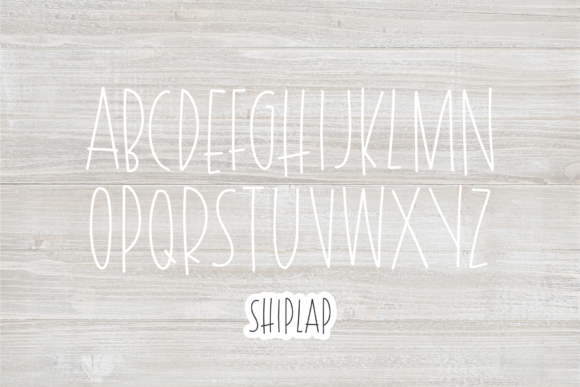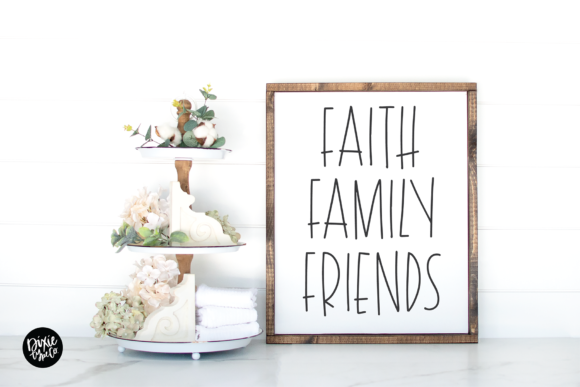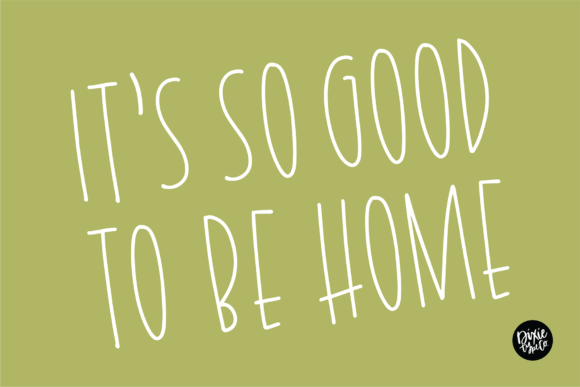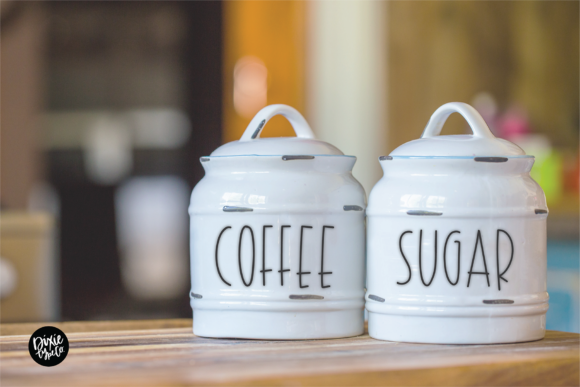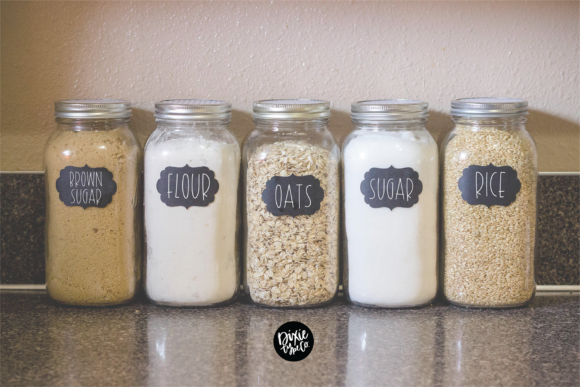
Introduction to Shiplap Font
Shiplap is a cute and casual sans serif font with an undeniably clean feel.
With its neat and beautiful arrangement of letters, this typeface will look outstanding in both formal and non-formal designs .